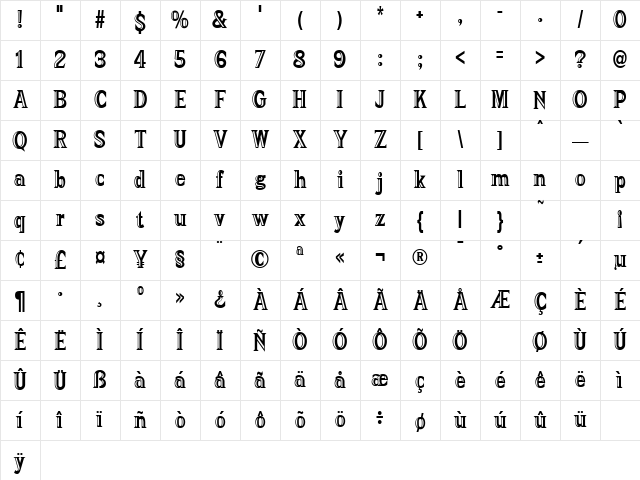
Anderson Regular
Design Context for Anderson
Anderson is a composed and adaptable typeface that performs quietly and consistently across a wide range of design contexts.